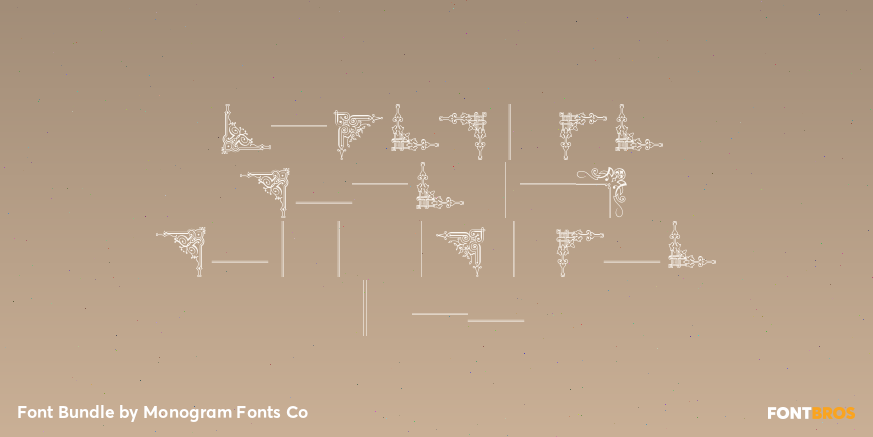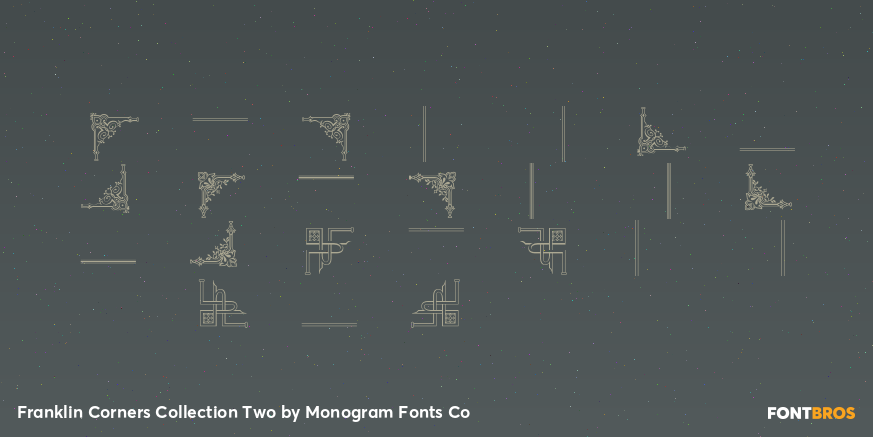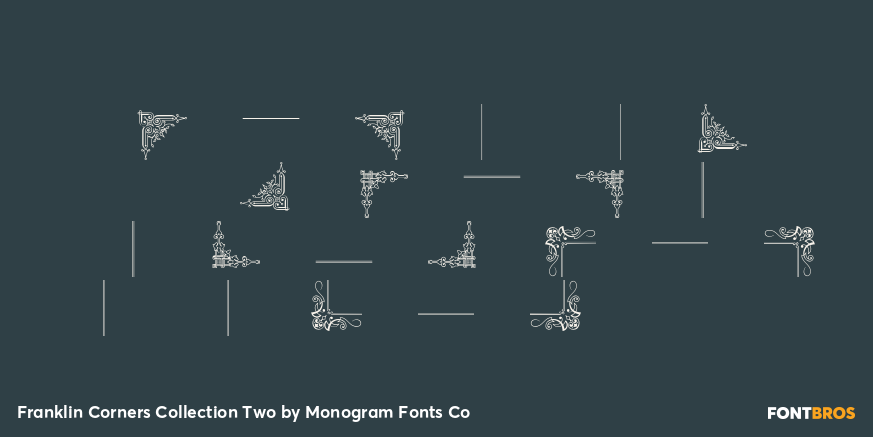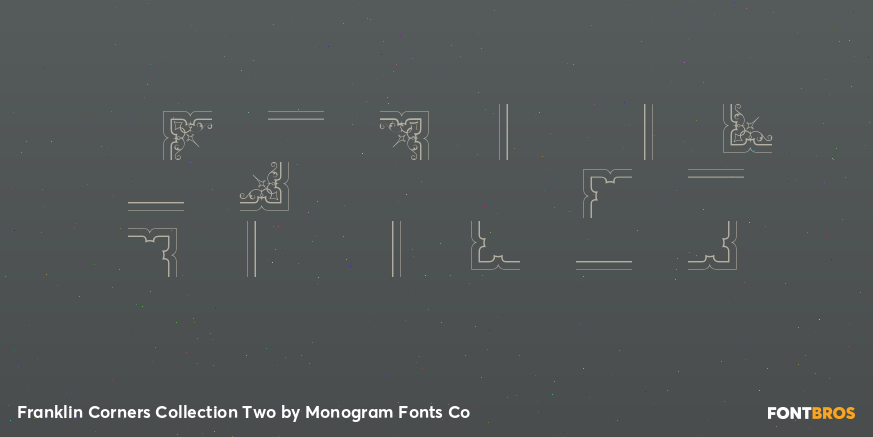
Franklin Corners Collection Two
Font Bundle by Monogram Fonts Co
The inspiration source for Franklin Corners is a collection of the Metal Corners from the 1889 "Convenient Book of Specimens" from Franklin Type Foundry in Cincinnati. This collection of ornate corners has been put together with their matching precision rules, alternate bare corners, and a basic dual line frame for added versatility.
Franklin Corners Four
Franklin Corners Five
Franklin Corners Six